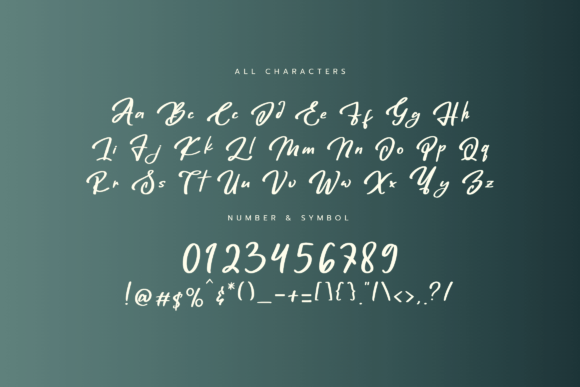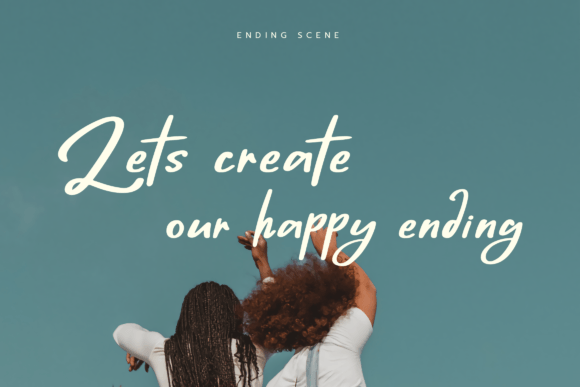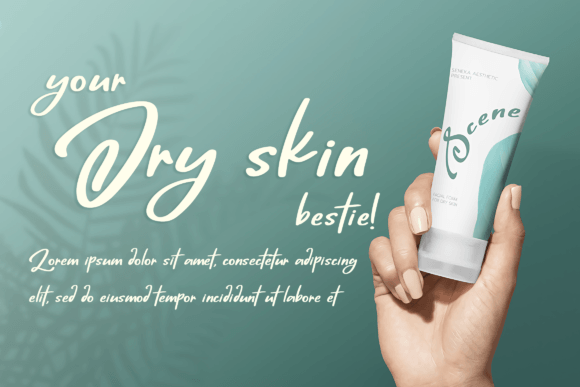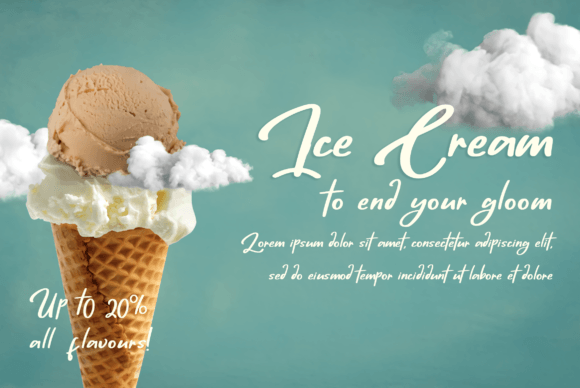
Create Joyful Designs with Ending Scene Font
The Ending Scene Font is a playful, modern handwriting typeface designed to infuse creativity and emotion into your work. Its cheerful strokes and lively flow make it a versatile choice for designs that need personality and charm.
Whether you’re working on personal greetings or commercial branding, this font offers the perfect balance of casual elegance and modern appeal. From birthdays to product packaging, the possibilities are truly endless.
Perfect for Cards, Events, and Everyday Creativity
Ending Scene shines in projects that require a personal and heartfelt touch. Use it for birthday cards, baby showers, or greeting cards to make your message feel warm and joyful. The natural handwriting feel evokes authenticity, helping your designs stand out in a sea of generic templates.
Planning a wedding or an important event? This font is a wonderful addition to invitations, thank-you notes, and event signage. Its playful nature adds just the right amount of flair without overpowering the message.
Versatile for Digital and Print Use
Not only is Ending Scene perfect for printed items, but it also performs well in the digital space. Use it for Instagram quotes, flyers, social media graphics, and presentation headings to inject life into your visuals.
Because of its clean and flowing lines, Ending Scene remains highly readable, even at smaller sizes or longer text blocks. This makes it suitable for product descriptions, email headers, and more.
Works Beautifully for Branding and Packaging
Looking for a unique script font that enhances your brand? Ending Scene adds a friendly and approachable vibe to logos, labels, and product packaging. It’s especially effective for brands targeting family, lifestyle, children, or holiday-related markets.
You can pair it with a modern sans-serif or minimal serif font to create a stunning combination of headline and body text. Whether you’re designing a book cover or a boutique label, Ending Scene provides that handwritten warmth customers love.
Why Choose Ending Scene Font?
Here’s what makes it special:
Playful, modern handwriting style with emotional appeal
Excellent for greeting cards, logos, and event invitations
Readable and stylish, even in long-form applications
Ideal for both print and digital projects
Versatile enough for everyday and commercial design
Add Emotion and Style to Every Scene
In summary, the Ending Scene Font is your go-to script when you want to create joyful, fun, and heartfelt designs. Its hand-drawn feel and modern rhythm add authenticity to every word.
Let Ending Scene bring personality and playfulness to your creative work—whether it’s an everyday message or a once-in-a-lifetime celebration.